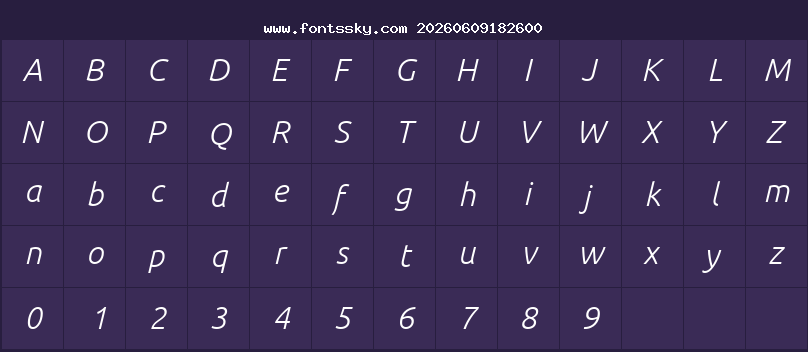
Ubuntu Light Preview
• Font Name: Ubuntu Light
• Font ID: 0.83;DAMA;Ubuntu-LightItalic
• Full Font Name: Ubuntu Light Italic
• Version: 0.83
• PostScript Name: Ubuntu-LightItalic
• Character Count: 1194
• Designer: Dalton Maag Ltd
• Manufacturer: Dalton Maag Ltd
About Ubuntu Light.ttf
Ubuntu Light.ttf is a modern, elegant sans-serif font designed for ultimate readability and visual harmony. Perfect for branding, headlines, web design, and print materials.